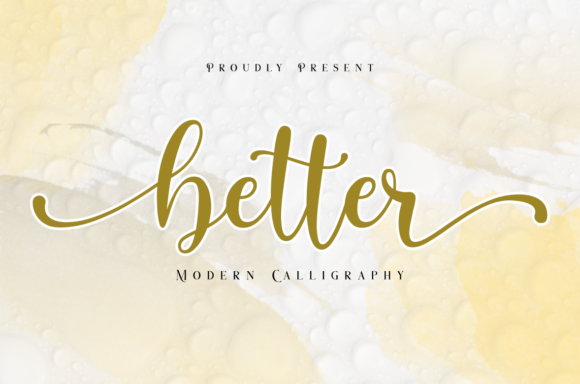
The Quest for the Perfect Font: Discovering Better Font
I still remember the time I was working on a wedding invitation design project, and I just couldn’t seem to find the right font. My client wanted something elegant, yet charming; something that would make their special day feel truly unique. I scoured the internet, tried out countless fonts, but nothing seemed quite right. That was until I stumbled upon Better Font. ✨
A First Impression: What Makes Better Font Special
Better Font immediately caught my eye with its beautiful, handwritten aesthetic. It feels equally charming and elegant, making it perfect for designs that need a personal touch. From wedding invitations and thank you cards to quotes, greeting cards, logos, and business cards, Better Font is versatile and stunning. ✅
Key Features of Better Font
- PUA encoded for easy access to glyphs and swashes
- Varying baseline for a natural, handwritten look
- Smooth lines and gorgeous glyphs
- Stunning alternates for added creativity
What I Love About Better Font
- ✨ The font’s elegance and charm make it perfect for special occasion designs
- 🎨 The variety of glyphs and swashes allows for endless creativity
While Better Font is an excellent choice for many designs, there are a few things to keep in mind: 🤔
- ⚠️ Some users may find the font’s handwritten nature too casual for certain projects
The Story Behind Better Font: Designer Inspiration
Better Font was created with the goal of providing a beautiful, yet practical handwritten font for designers and crafters. Inspired by classic calligraphy and modern digital design, Better Font’s creator aimed to craft a font that would bring a touch of elegance and charm to any project. While the true story behind Better Font may be unknown, its impact on the design community is clear.